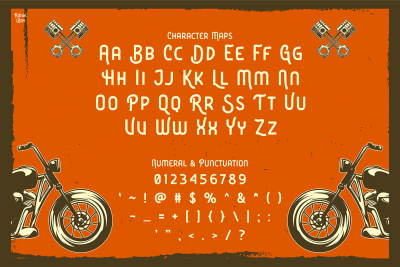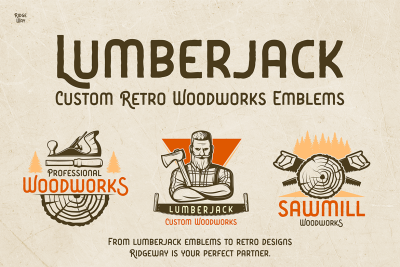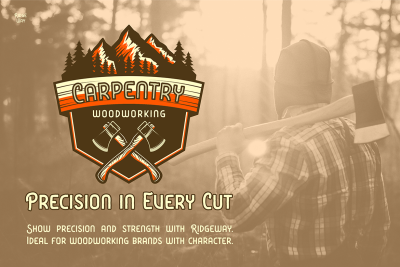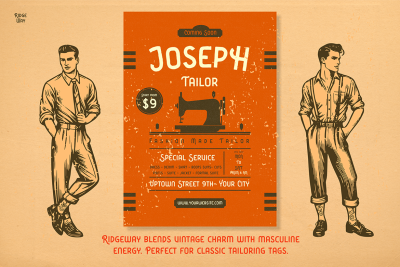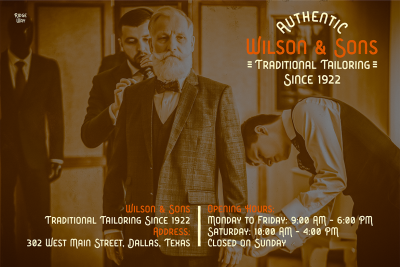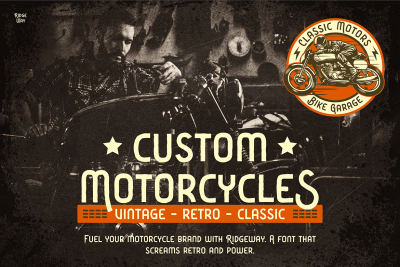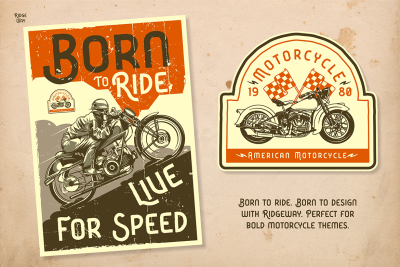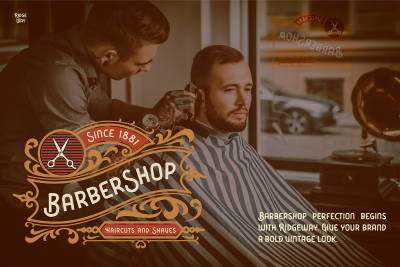
Vintage Font Ridgeway is a classic typeface that embodies the charm of retro design. With bold, clean strokes and decorative details, it brings a sense of nostalgia. This font evokes early 20th-century typography, making it ideal for vintage-inspired projects. Its elegance and warmth make it stand out, perfect for anyone seeking a stylish yet timeless look.
Ridgeway balances modern readability with vintage flair. It adapts well to many creative projects. Whether youโre designing a poster, a logo, or packaging, this font brings both sophistication and personality. The clean lines ensure clarity, while the subtle decorative elements add a unique touch. Ridgewayโs versatility lets it work across different media, from print to digital.
Who Should Use Vintage Font Ridgeway?
Vintage Font Ridgeway is ideal for graphic designers and branding professionals. It suits industries like food, fashion, hospitality, and artisanal products. Businesses aiming to convey tradition and authenticityโsuch as coffee shops or craft breweriesโcan benefit from this font. Its classic appeal suggests quality and craftsmanship, which is perfect for standing out in competitive markets.
For logo and packaging design, Ridgeway is a great choice. It works well for creating unique, memorable logos, product labels, and other promotional materials. Itโs also an excellent fit for event planners and wedding designers. The font’s vintage vibe makes it perfect for invitations and signage at retro-themed events.
Social media marketers can also use Ridgeway to create impactful digital campaigns. It performs well in both digital ads and print, ensuring your content remains engaging and relevant. Whether youโre creating merchandise, menus, or editorial designs, Ridgeway adds sophistication and authenticity to your work.
In short, Vintage Font Ridgeway is perfect for anyone looking to evoke a sense of history and elegance in their designs. Whether for branding, packaging, or social media, it adds a classic touch that resonates with modern audiences.